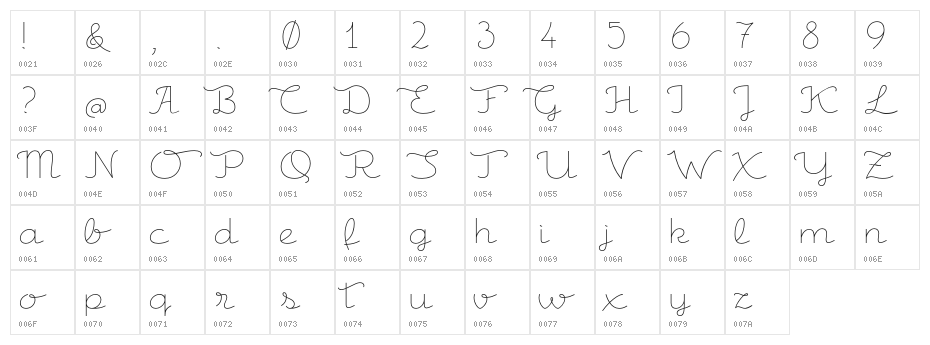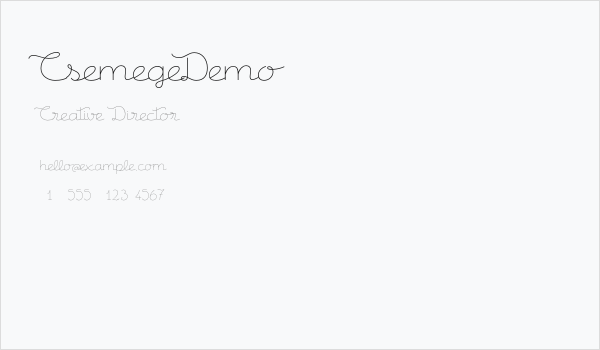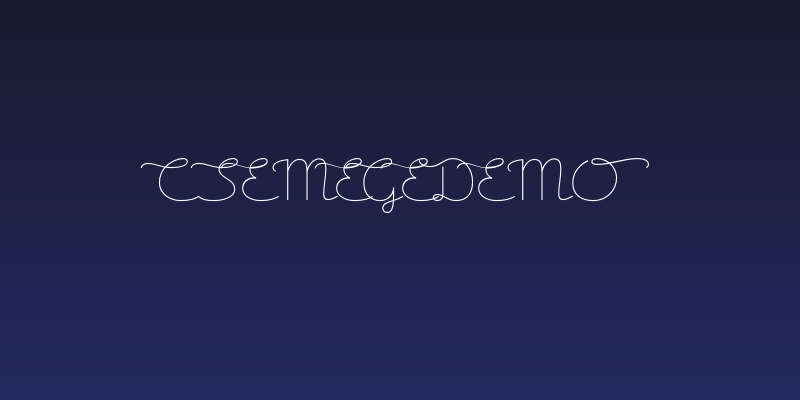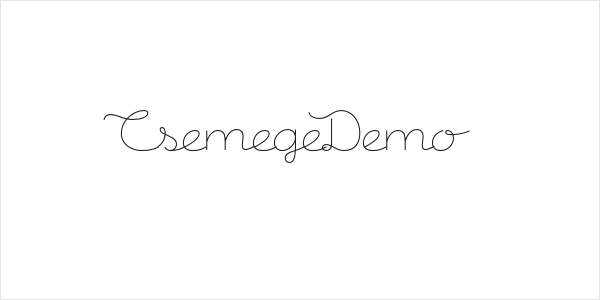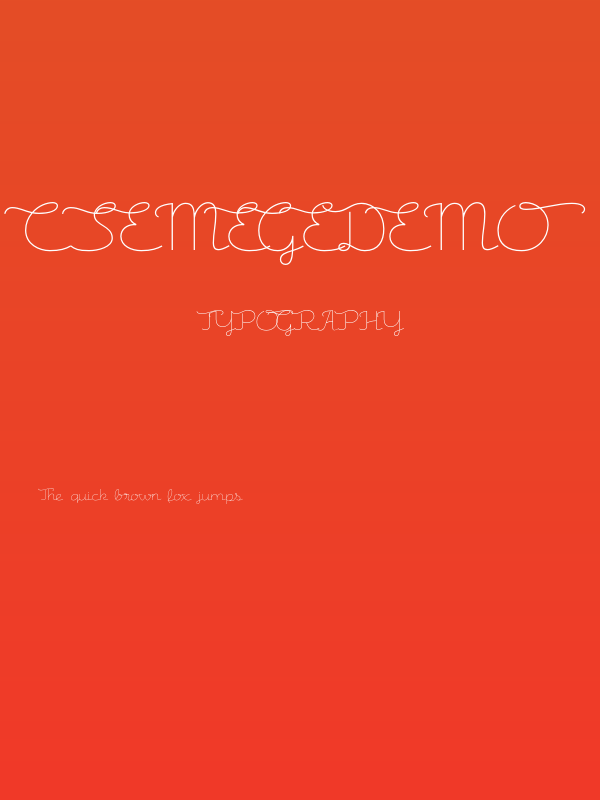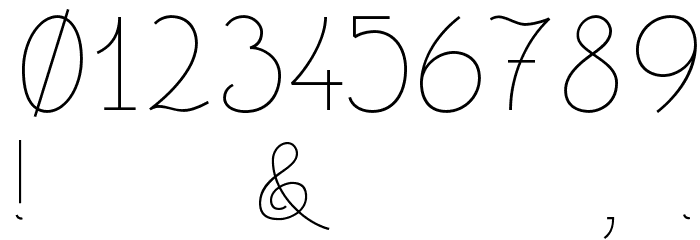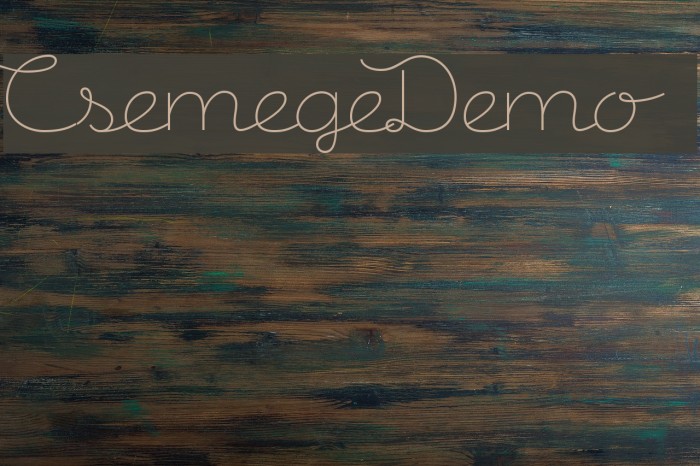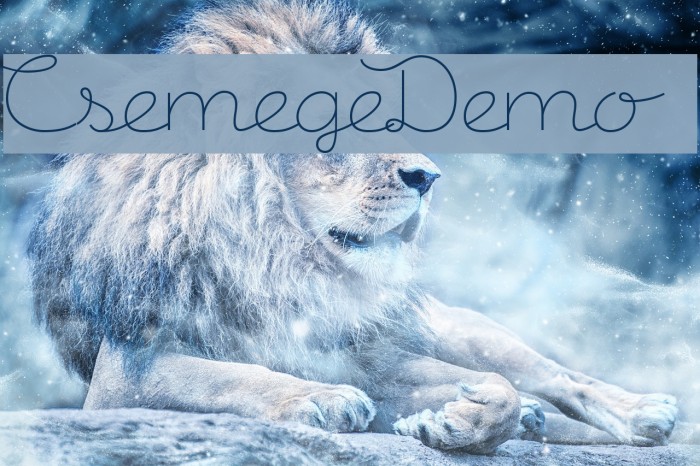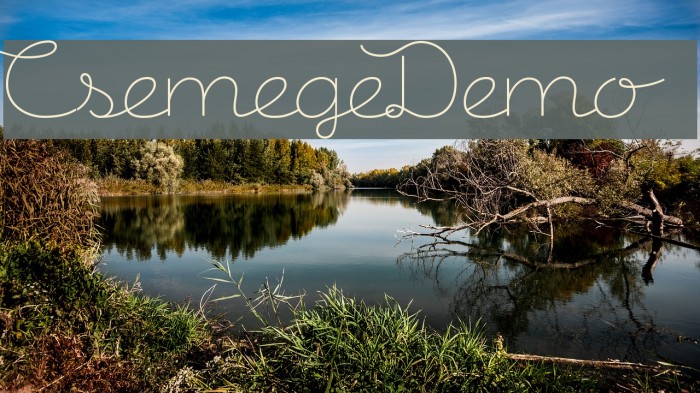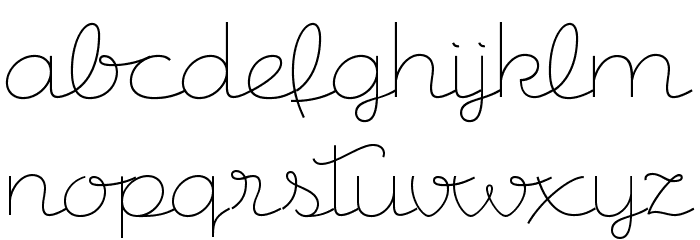
CsemegeDemo Font
This font features a delicate and elegant script style with a flowing, cursive design. The characters are interconnected with smooth, looping strokes, giving it a whimsical and artistic appearance. The uppercase letters are particularly ornate, with additional flourishes that enhance their decorative quality. The lowercase letters maintain a consistent flow, complementing the uppercase with their simpler yet harmonious design. Numbers and special characters are crafted with the same attention to detail, ensuring a cohesive look across all elements. The overall aesthetic is light and airy, making it suitable for projects that require a touch of sophistication and creativity.